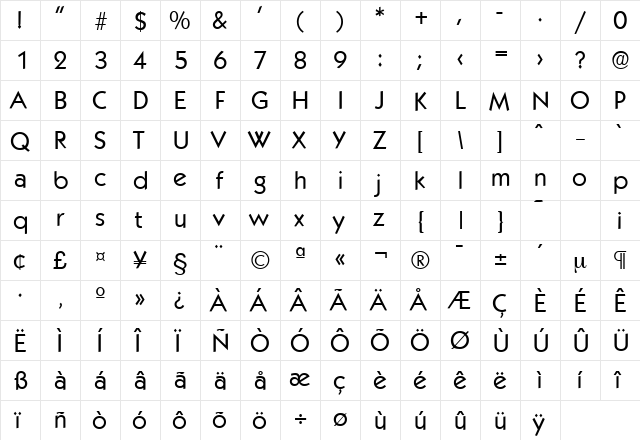
Koblenz-Serial DB Regular Font Preview
Koblenz-Serial DB Regular
Design Context for Koblenz-Serial DB Typeface
Koblenz-Serial DB offers clean, dependable letterforms without strong stylistic allegiance, making it a practical choice for designers who need flexibility.